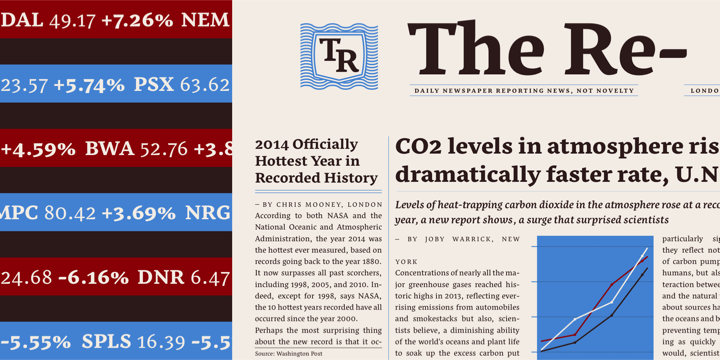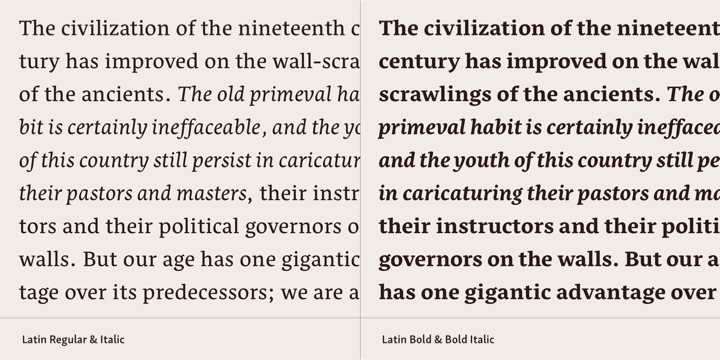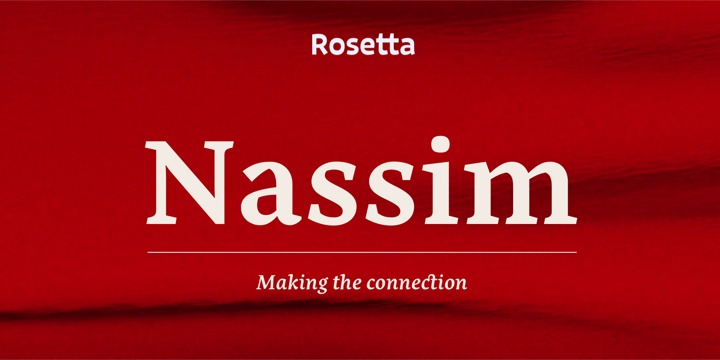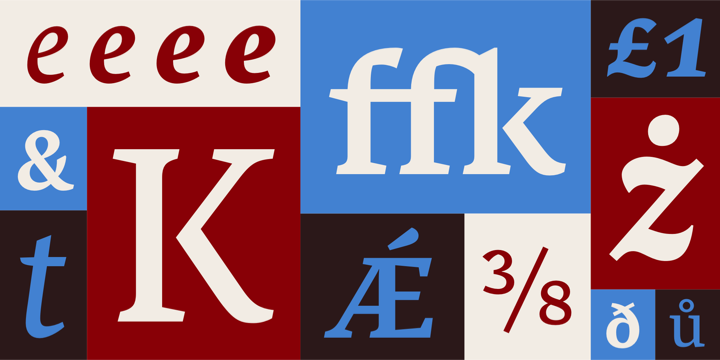
Nassim Font Family
Nassim is a contemporary typeface for multilingual text-setting. Its lively texture pays tribute to calligraphic heritage. The well balanced rhythm and a vast array of features allow for a wide range of applications, from news, to literature, to scientific publications. Read by millions of people around the globe every day, it does what it does best, delivering content with an authentic voice.
Bridging two contrasting typographic traditions, Arabic and Latin, Nassim achieves balance and harmony without compromising either one. When it was first released, it was an exceptional rendering of Arabic in OpenType – ahead of the curve. The new Pro version challenges existing conventions and defies the limitations of digital Arabic once again.